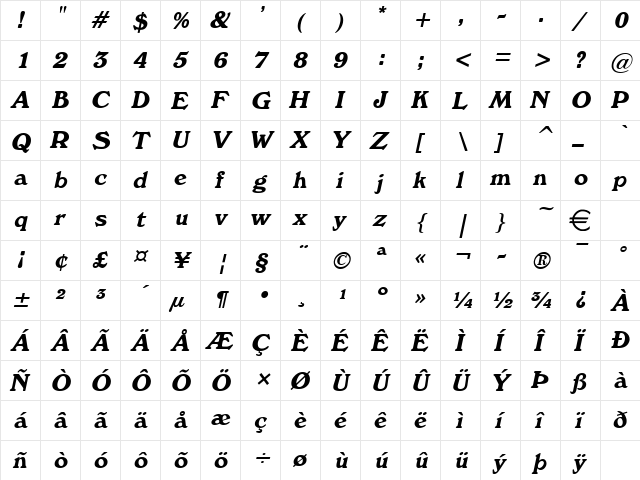
Wren Italic Font Preview
Wren Italic
Wren Italic Font Details
Design Context for Wren Typeface
Wren takes a measured approach to typography — its balanced proportions and neutral character make it a reliable workhorse for both digital and print work. Its italic angle brings a sense of urgency and motion to the letterforms.